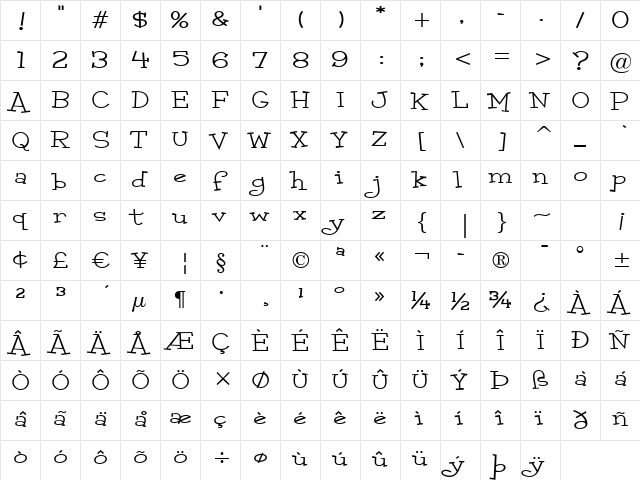
Malihini Cuban BTN Exp Regular
Design Context for Malihini Cuban BTN Exp Typeface
Malihini Cuban BTN Exp is a composed and adaptable typeface that performs quietly and consistently across a wide range of design contexts.